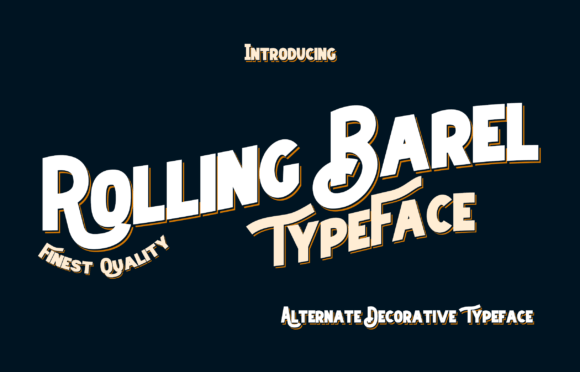
Unleash the captivating charm of Rolling Barel Font, a modern and elegant display font crafted by Uranographic. Its casual allure lends a down-to-earth, readable, and incredibly versatile character that effortlessly elevates any design.
Journey through a world of creative possibilities with Rolling Barel Font, the ultimate font companion for web designers seeking distinction. Its fluid lines and graceful curves dance across the screen, captivating audiences with its effortless personality. Whether you're crafting eye-catching headlines, weaving captivating body text, or adding a touch of elegance to your digital creations, Rolling Barel Font stands as your trusted ally.
Immerse yourself in a symphony of visual delight as Rolling Barel Font transforms your designs into masterpieces. Its versatile nature seamlessly adapts to a myriad of design aesthetics, effortlessly complementing busy backgrounds and standing tall as a striking standalone headline. Let Rolling Barel Font take center stage, commanding attention with its inherent charm and sophistication.
Embrace the boundless creativity that Rolling Barel Font unlocks. Its user-friendly nature invites designers of all levels to explore the depths of their imagination. Whether you're a seasoned professional or just starting your design journey, Rolling Barel Font empowers you to create captivating visuals that leave a lasting impression.
Step into the spotlight with Rolling Barel Font, the font that ignites creativity and propels your designs to new heights. Don't let mediocrity hold you back; embrace the transformative power of Rolling Barel Font and watch your creations come alive with captivating elegance.